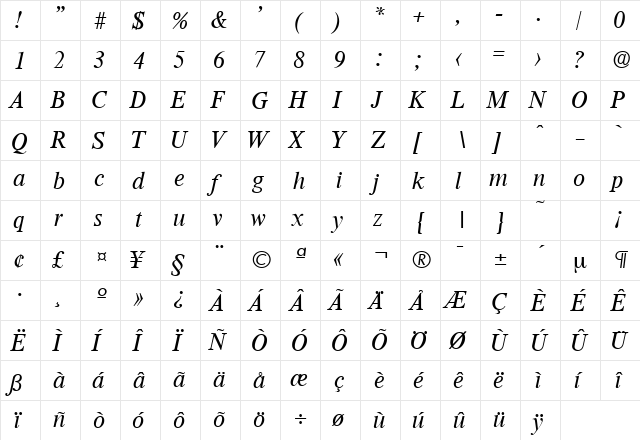
Thames-Serial RegularItalic Font Preview
Thames-Serial RegularItalic
Design Context for Thames-Serial Typeface
Thames-Serial is a composed and adaptable typeface that performs quietly and consistently across a wide range of design contexts. The slanted form adds forward momentum and visual energy.
Pro Tip: Try Thames-Serial for annotation and caption copy alongside an upright companion — the contrast in angle creates a dynamic but ordered typographic system.